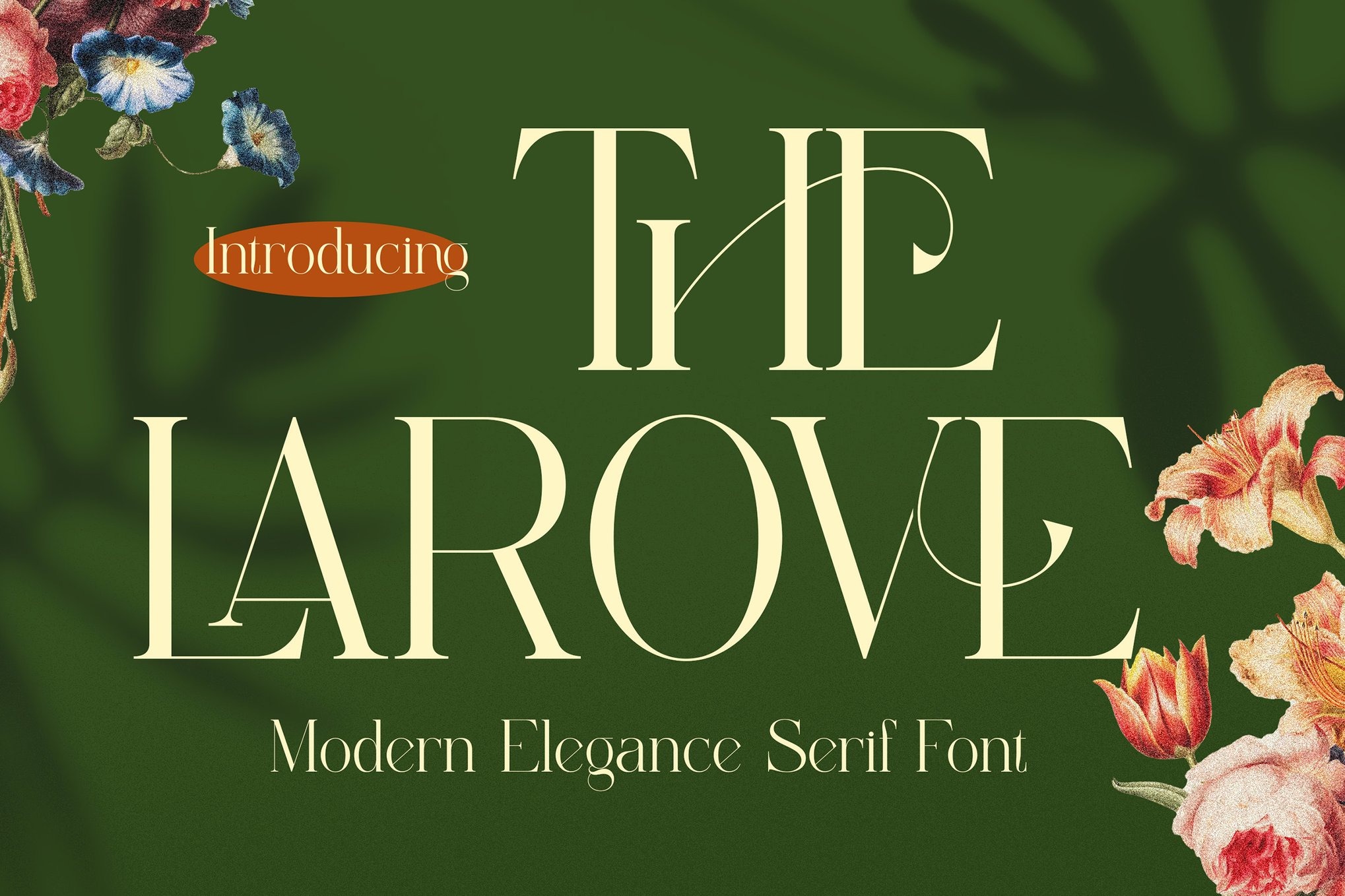
The Larove Font
The Larove Font brings a balanced structure and contemporary look, making it suitable for both digital and print design. The Larove the elegant, beautiful, and modern Serif. With its modern and minimalist look, The Larove brings a luxurious, classy, ​​and clean style to your projects such as websites, modern logos, brand identities, social media quotes, wedding stationery, magazines, and more!
The Larove features unique and classy capital letters A to Z and also comes with unique alternates and ligatures making The Larove a beautiful font that can be customized for various projects and jobs you want.
The Larove is perfect for: logos, brands, wedding invitations, business cards, greeting cards, posters, magazines, social media, agenda prints, and websites.